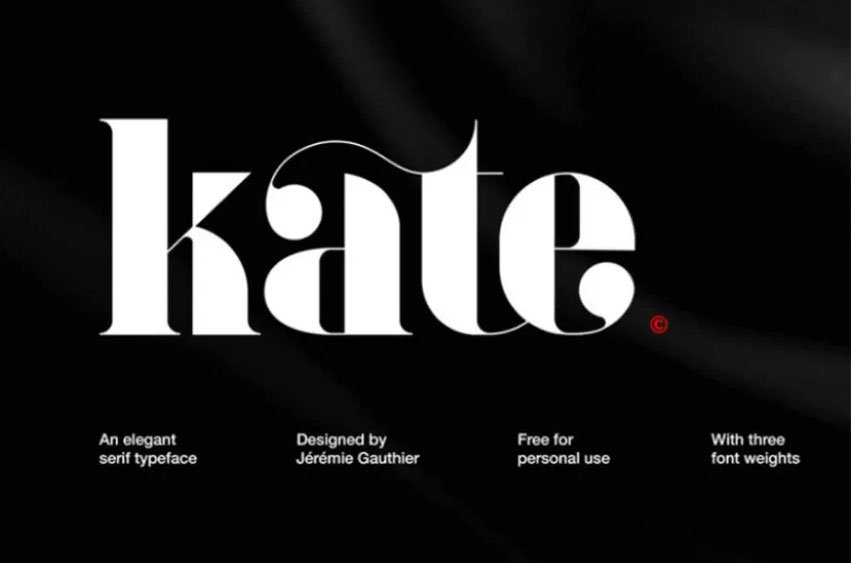
Kate Font is a elegant serif font family based on luxury and sophistication. Features of the Kate typeface are that it comes with 3 font weights, awesome ligatures, and numerals, many alternates.
This font is perfect for : stylish logos, banners, letterheads, carton designs and many other things.